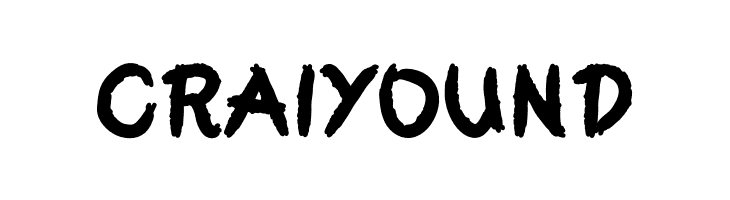
A classic blackletter font with ornate, angular designs and high contrast strokes.
A bold, decorative font with a distressed, vintage style.
A playful, hand-drawn font with tall, narrow letters and a whimsical style.
A refined serif font with light weight and italic style, perfect for elegant designs.
A dynamic, handwritten font with fluid strokes and artistic flair.
A dynamic and expressive script font with fluid, cursive strokes.
A playful, outlined font with a shadow effect, perfect for festive designs.
A bold, playful font with thick, rounded strokes and a whimsical, hand-drawn style.
A lively and expressive script font with flowing, interconnected letterforms.
An elegant cursive font with fluid, graceful strokes.